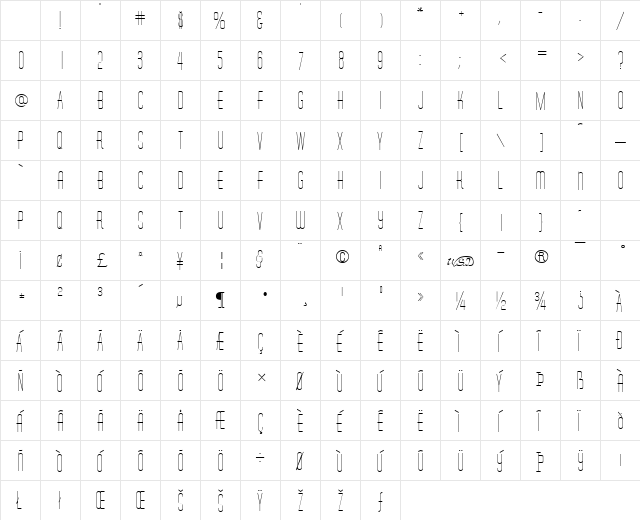
Melanin normal Free Font
Melanin normal
Style: normal
Melanin Family
Melanin normal
Design Context for Melanin
Melanin is a composed and adaptable typeface that performs quietly and consistently across a wide range of design contexts.